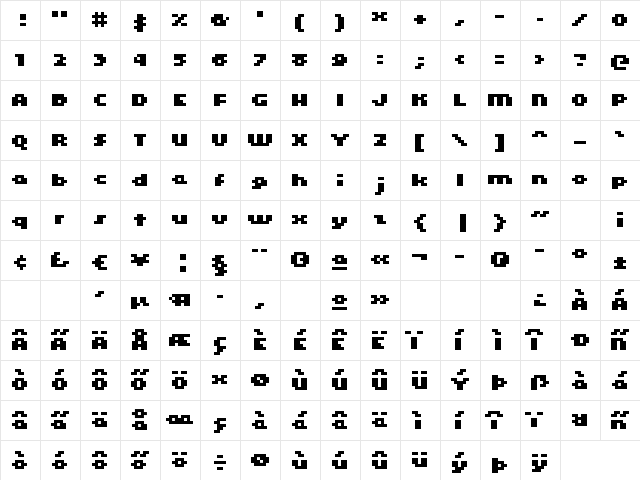
kroeger 04_65 Regular Font Preview
kroeger 04_65 Regular
kroeger 04_65 Regular Font Details
Design Context for kroeger 04_65 Typeface
kroeger 04_65 is a composed and adaptable typeface that performs quietly and consistently across a wide range of design contexts.
Pro Tip: Use kroeger 04_65 in both headline and body roles to test its range before committing to a single application.